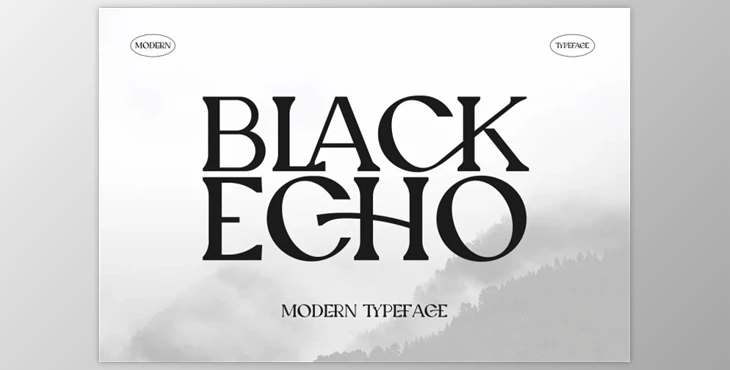
Black Echo Modern Ligature Font: The Black Echo Serif font is a bold, vintage-style serif font with a strong sense of confidence. Black Echo Font is inspired by something elegant, simple, flexible, and user-friendly. It's excellent for retro and modern designs. Although it's intended for use as a font used in displays, it also includes the option of using lowercase characters with alternates and ligatures that make it unique and customizable. You can turn ligatures on or off, switch between alternates, and experiment with tracking to create a one of an era look (super ideal for branding logos).
What is Black Echo Modern Ligature Font
The "Black Echo" font is a typeface known for its modern and stylish design. Ligatures in typography refer to the joining of two or more characters into a single glyph, often for aesthetic or functional reasons. Modern ligature fonts like "Black Echo" are designed to have decorative ligatures that can enhance the visual appeal of text.